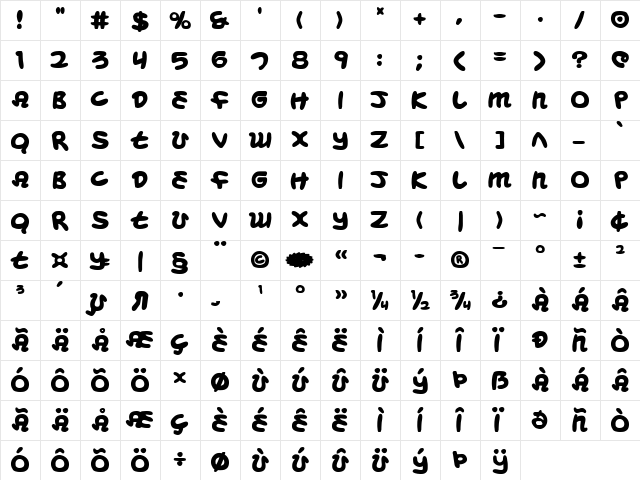
Magic Beans Bold Bold Font Preview
Magic Beans Bold Bold
Magic Beans Bold Bold Font Details
Design Context for Magic Beans Bold Typeface
Magic Beans Bold is a composed and adaptable typeface that performs quietly and consistently across a wide range of design contexts. Its bold stroke weight gives it real presence on the page.